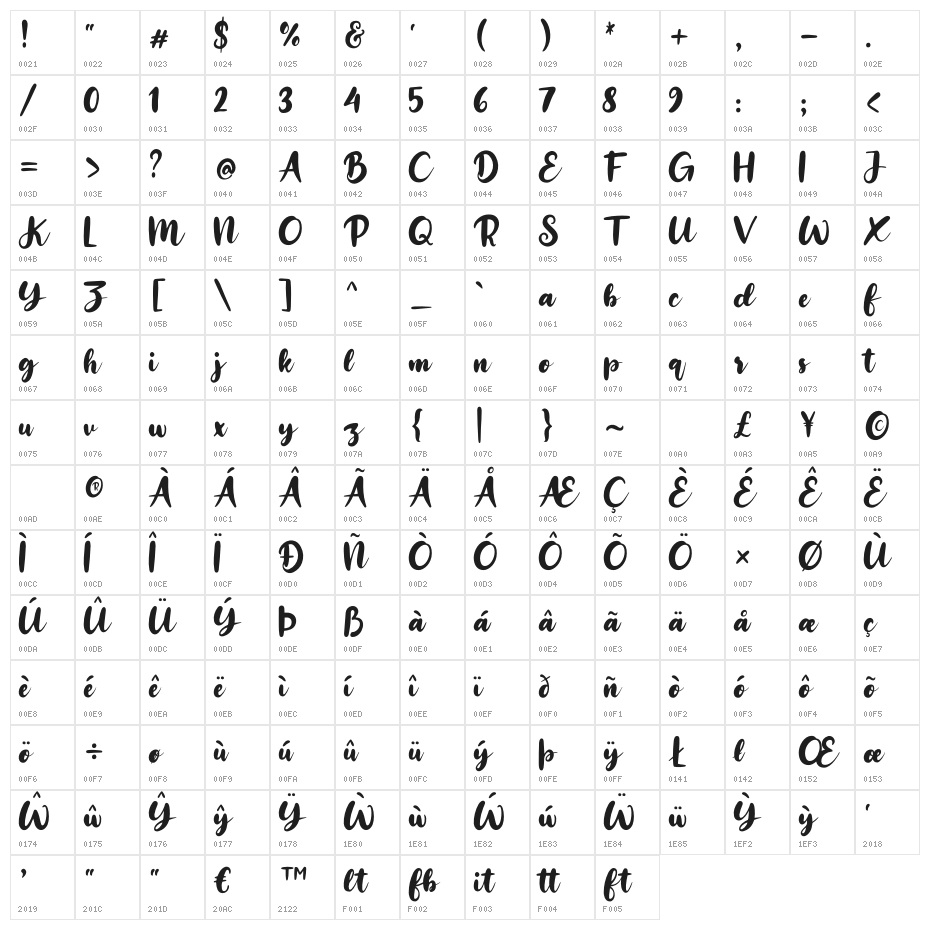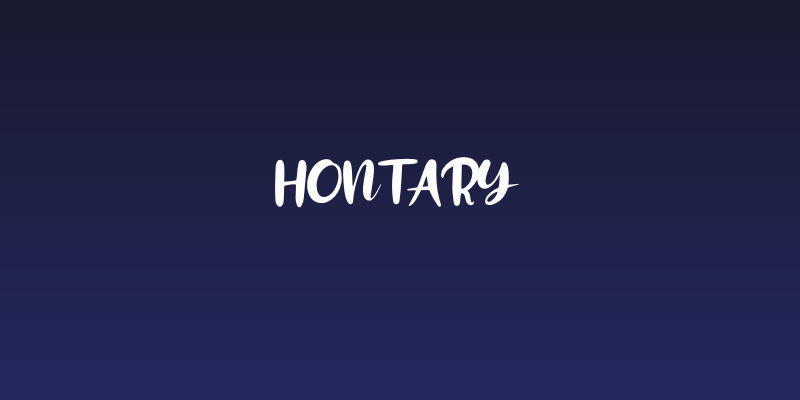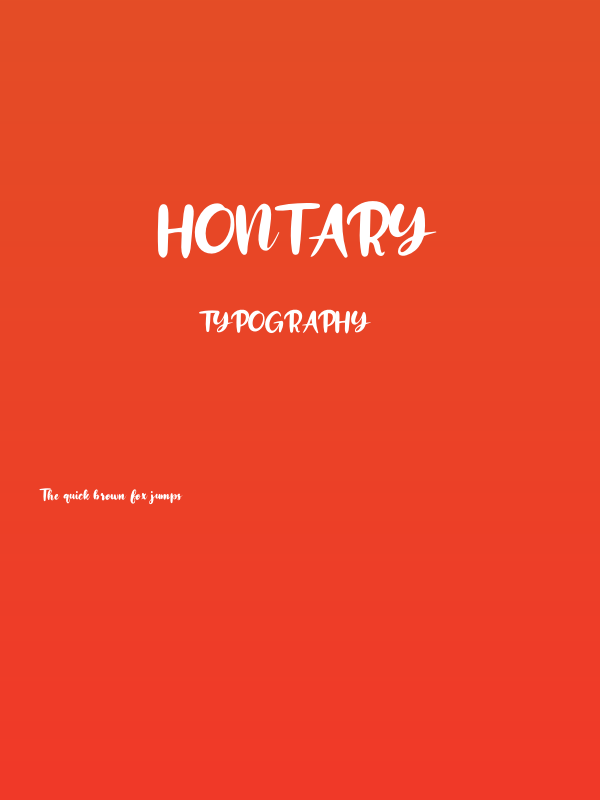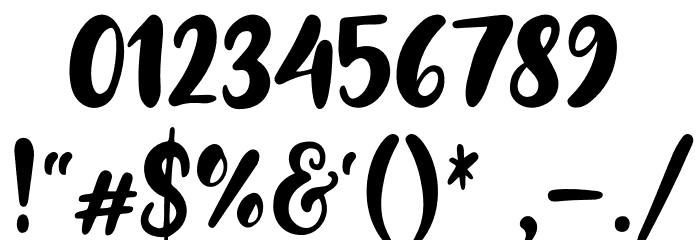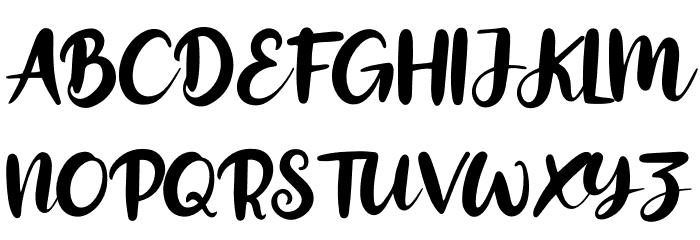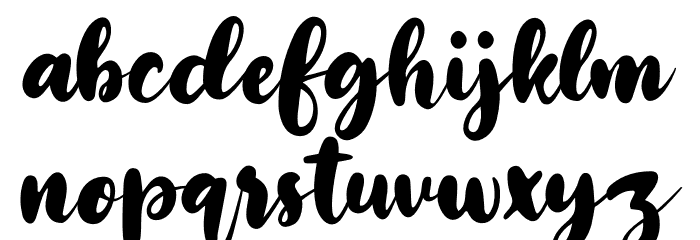
Hontary Font
Hontary Description
This font exudes a lively and dynamic personality with its bold, flowing script style. The characters are connected in a fluid manner, giving it a handwritten feel that is both elegant and casual. The uppercase letters are slightly more formal, while the lowercase letters maintain a playful and approachable vibe. The numbers and special characters are crafted with the same attention to detail, ensuring consistency throughout. The strokes are thick, providing a strong presence on the page, while the curves and loops add a touch of sophistication. This font is perfect for projects that require a personal touch, such as invitations, greeting cards, or branding materials.